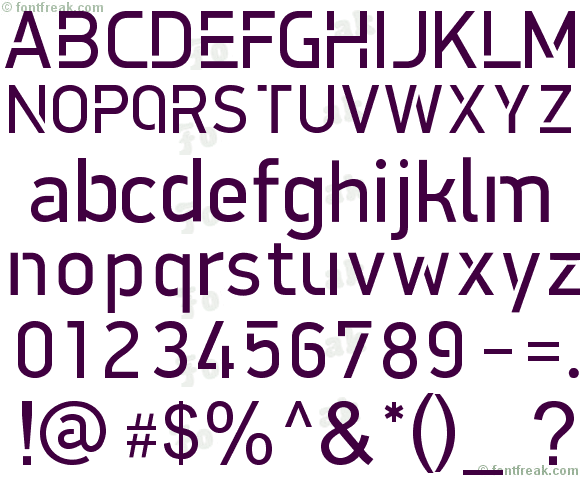
LaserCutRegular
About LaserCutRegular
LaserCutRegular is a striking display font designed by Garcross Engineering, characterized by its bold, geometric shapes that evoke a modern, industrial aesthetic. This sans-serif typeface features a consistent stroke weight with minimal contrast, making it an excellent choice for a variety of design applications. Its clean lines and well-balanced spacing ensure legibility even at larger sizes, providing a contemporary feel that can elevate any project.
The visual characteristics of LaserCutRegular are defined by its sharply defined edges and uniform thickness, which create a sense of precision and clarity. The font’s straightforward design makes it versatile for various contexts, particularly where a strong visual impact is desired. Best use cases for LaserCutRegular include signage for tech startups, branding for innovative products, and promotional materials for events. Additionally, it works wonderfully for modern restaurant menus, eye-catching posters, and dynamic website headers, making it a valuable resource for graphic designers and content creators.
What sets LaserCutRegular apart is its unique combination of simplicity and boldness, making it an ideal choice for modern applications. The font’s ability to convey a sense of innovation while remaining user-friendly ensures that it stands out in a crowded digital landscape. Download the LaserCutRegular font free today and discover how it can transform your designs into striking visual statements.